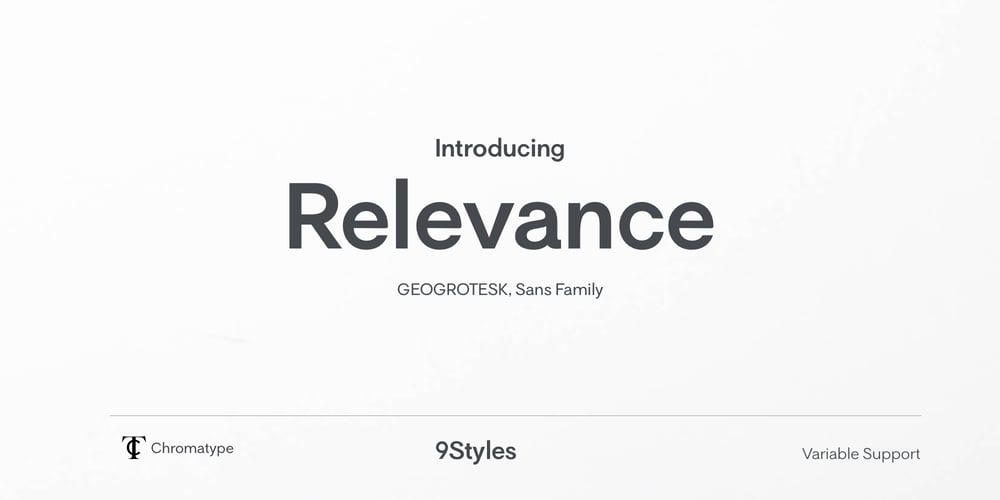
Relevance Font Family was designed by Slamet Ardiyanto and published by Chromatype Studio. Relevance contains 9 styles and family package options. Every Weight of font can create relevance for any purpose and feel, RELEVANCE is a geometric grotesque sans serif typeface that was created to connect that. done with modern appeal to blend with modern needs.Ranging from extra light to black weights, Relevance offers many possibilities to be applied in many graphic or editorial projects. The lighter weights are suitable for short paragraphs, and the heavier weights are perfect for headlines, perfectly suitable for display purposes such as book covers, web headlines, branding, or editorial.